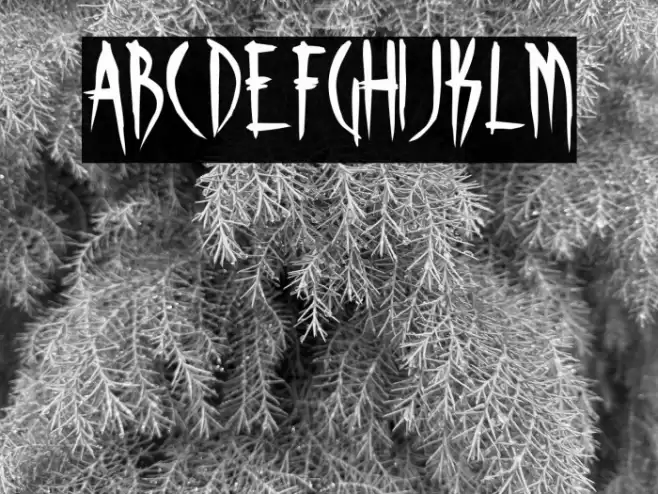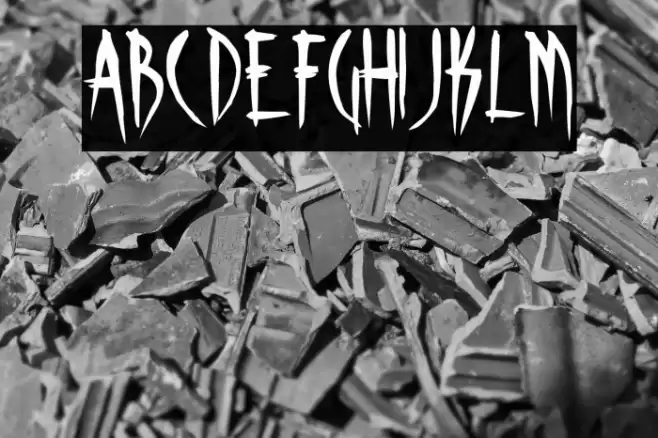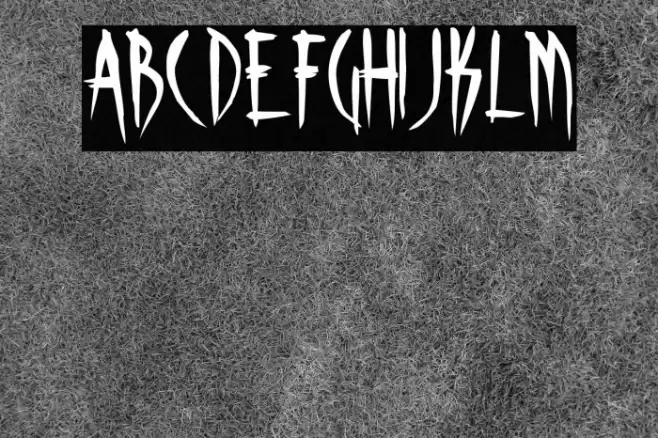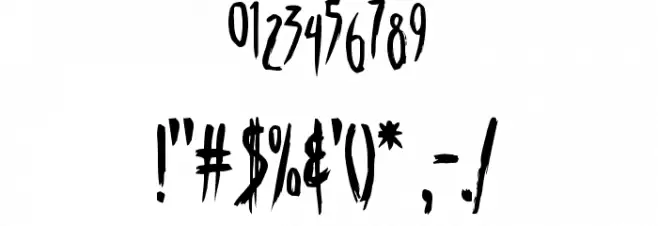
Skinner AOE Font
Skinner AOE Description
This font features a distinctive and edgy design with sharp, elongated strokes that give it a dramatic and intense appearance. The characters are tall and narrow, with pointed ends that create a sense of movement and energy. The uppercase and lowercase letters maintain a consistent style, emphasizing verticality and sharpness. Numbers and special characters follow the same aesthetic, adding to the cohesive look. The overall impression is one of boldness and uniqueness, making it suitable for projects that require a strong visual impact.
A sharp, edgy font with elongated strokes and a dramatic appearance from Uncategorized fonts.
- Font: Skinner AOE
- Proposed Projects: Ideal for horror-themed designs, movie posters, album covers, or any project needing a bold, dramatic typeface.
- Character Spacing: Tight
- Overall Style: Modern, Dramatic